WillyBlake Digital & Branding Studio utilizes the bold Variera font to create a high-impact, modern typographic experience across their portfolio website.
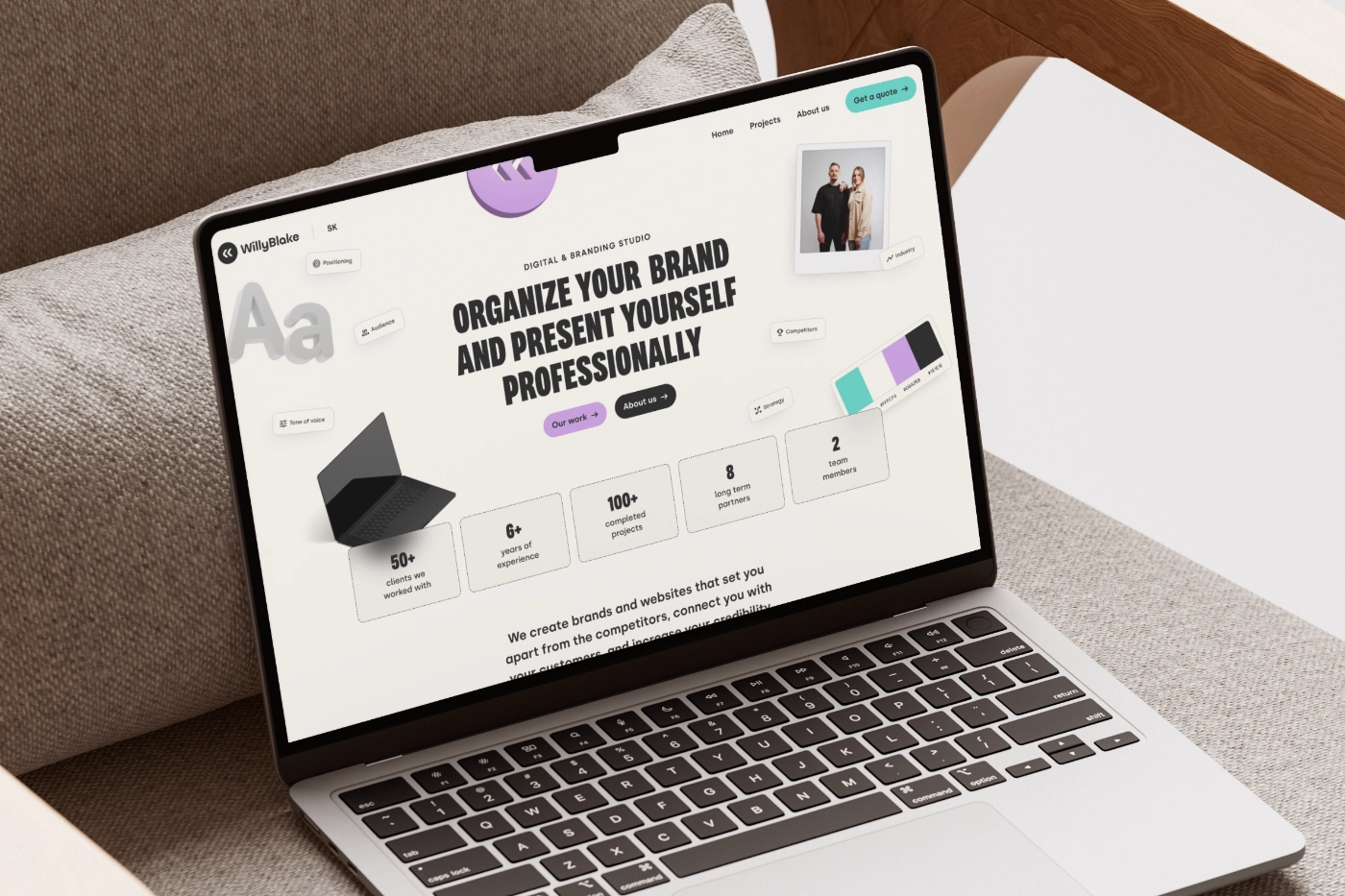
WillyBlake is a dynamic digital and branding studio that specializes in helping businesses organize their brand identities and present themselves professionally in the digital space. With a strong focus on strategy, brand positioning, and modern web design, the studio has successfully delivered over a hundred projects for diverse clients, ranging from healthcare clinics to technology companies. Their own studio website serves as a perfect testament to their creative capabilities, featuring a clean, structured, and highly visual layout that confidently puts their portfolio front and center.
To make a strong and memorable statement, the studio chose the Variera font by Kereatype for their website’s primary typography. Applied prominently across main headlines, section titles, and numerical data, the font’s bold, solid letterforms instantly grab the user’s attention while maintaining excellent readability. The heavy weight and modern structure of Variera perfectly complement the studio’s confident brand voice, giving their digital presence a commanding, professional, and contemporary edge that requires very little extra ornamentation.